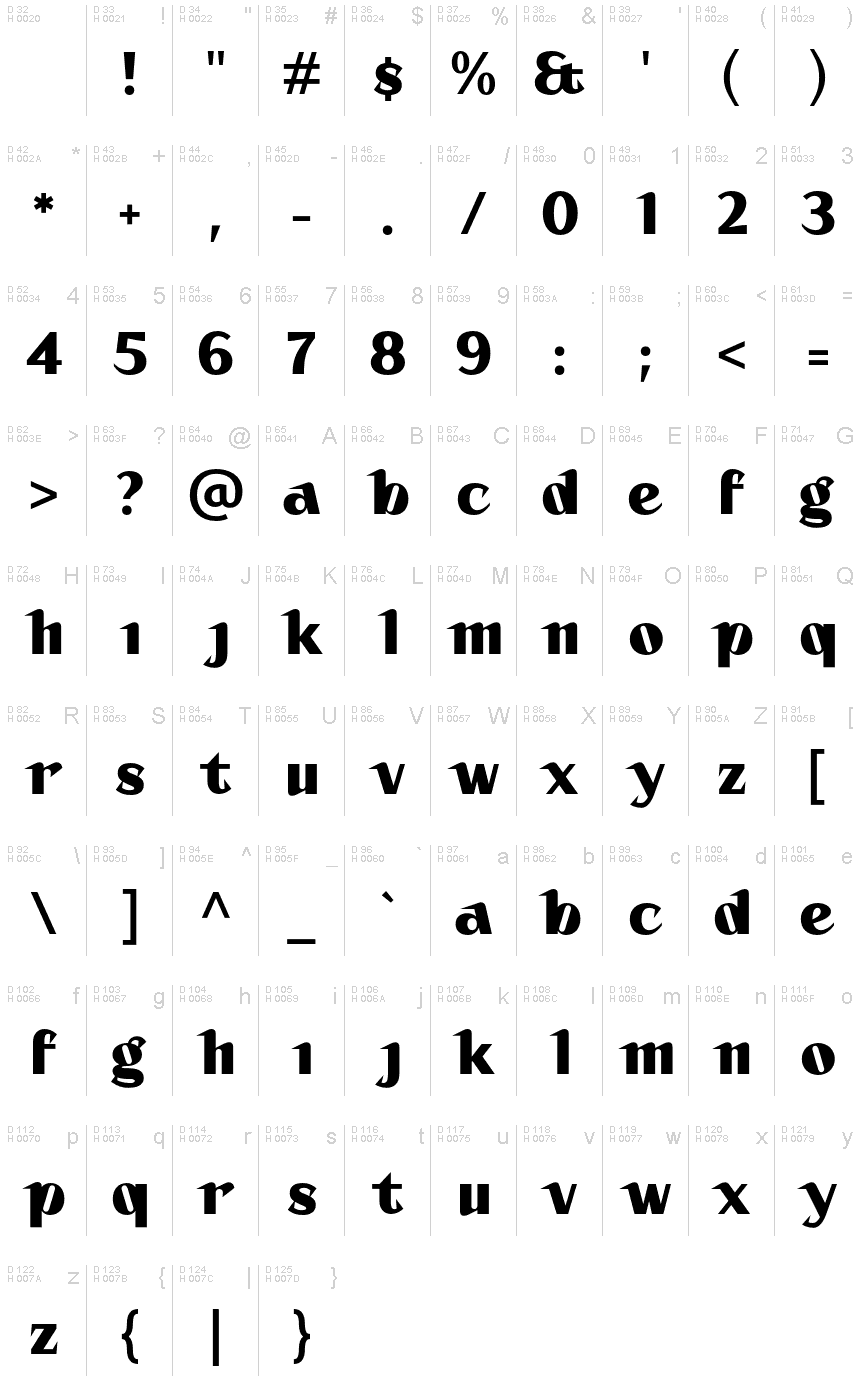
Conan-Regular
Conan, the bold font typeface designed by Faqih Fawaji, is a powerful and commanding font that is perfect for projects that require a strong and confident message. This font works great for headlines, titles, and logos as it demands attention with its bold weight and sleek design. From fashion to sports to tech, Conan is versatile enough to be used in various industries. Whether you're creating a website or designing marketing materials, Conan will ensure your message stands out and gets noticed. With its modern appeal and unique style, Conan is the perfect choice for any project that requires a bold statement.